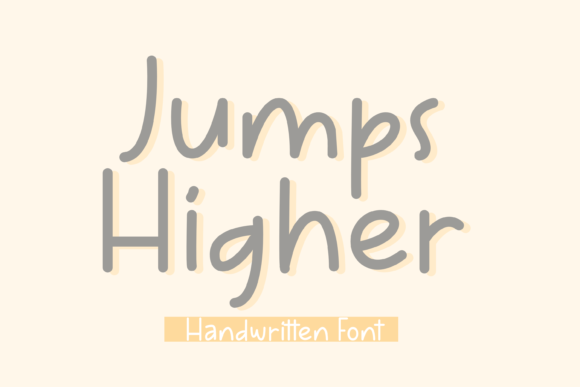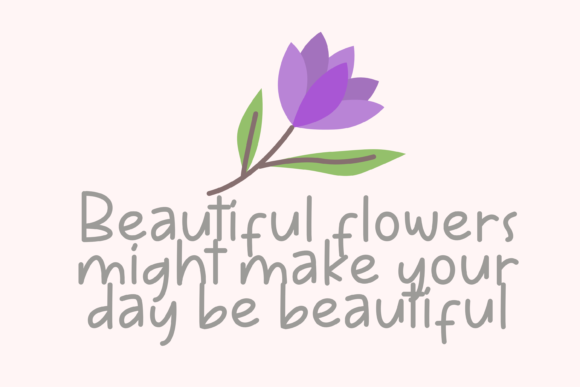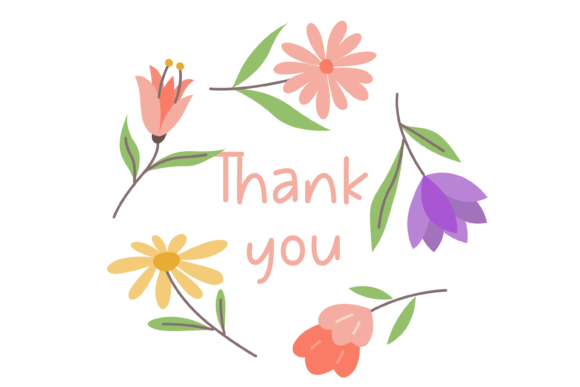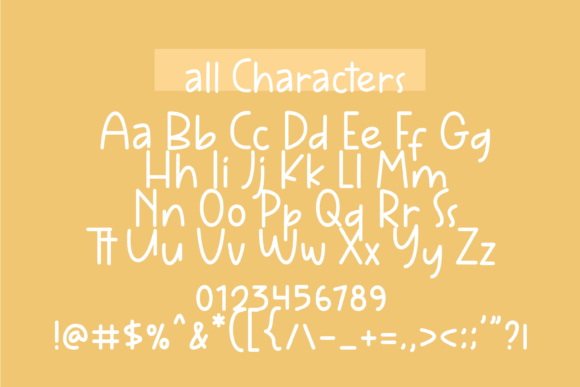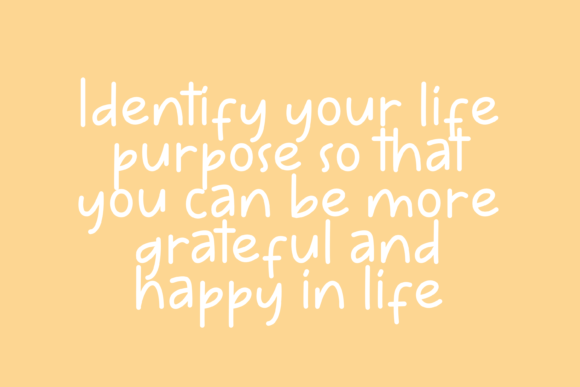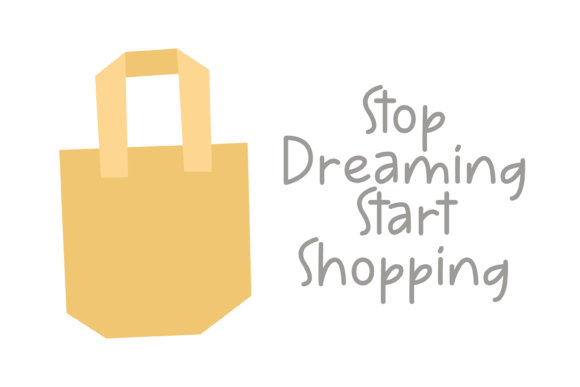
Jumps Higher Font
About Jumps Higher Font
Jumps Higher is a charming and versatile handwritten font that brings a playful and energetic touch to your designs. This font is perfect for chalkboard quotes, teaching materials, and any project that requires a fun and authentic handwritten style.
The small and delicate letterforms of Jumps Higher give your designs a unique and whimsical feel. Each letter is crafted with a hand-drawn appearance, as if it were written with a fine-tip marker or chalk. This adds a touch of personality and realism to your designs, creating a sense of joy and creativity.
With its compact size, Jumps Higher is particularly suitable for designs that require a smaller font, such as chalkboard quotes or teaching materials. Its legible letterforms ensure clarity, even at smaller sizes, making it easy to read and understand.
The playful and energetic nature of Jumps Higher adds a sense of movement and liveliness to your designs. Whether you’re creating educational materials, classroom resources, or motivational quotes, this font brings a dynamic and engaging atmosphere to your work.
Jumps Higher is not only great for chalkboard-style designs but also versatile enough to be used in various design applications. From greeting cards to social media graphics, this font adds a personal and realistic touch to your messages. Its compact size allows for creative placement and arrangement, making your designs stand out.
Pairing Jumps Higher with bold colors and playful illustrations further enhances its whimsical and lively nature. The combination of the handwritten font, vibrant colors, and playful elements creates a delightful and captivating visual experience.
In summary, Jumps Higher is a tiny handwritten font that adds a personal and realistic feel to your chalkboard quotes, teaching materials, and more. Its playful and energetic style creates a sense of joy and creativity, making your designs stand out. Embrace the unique charm of Jumps Higher and bring a touch of fun to your creations.